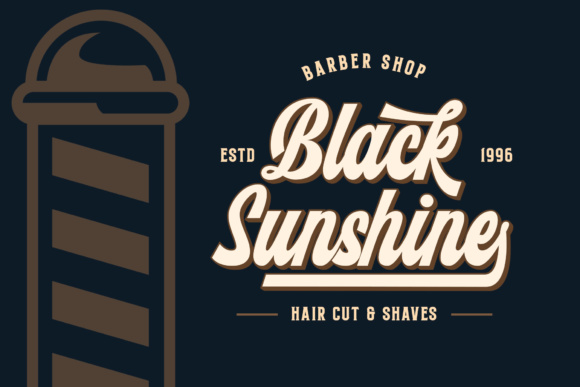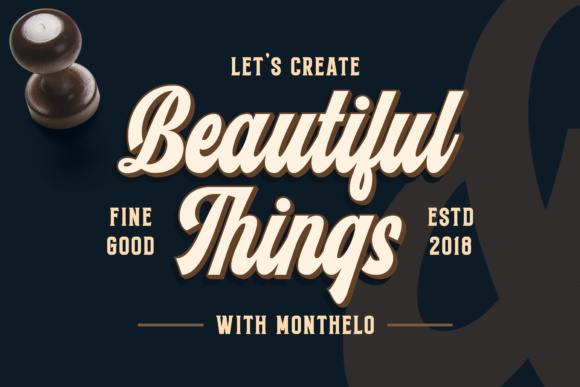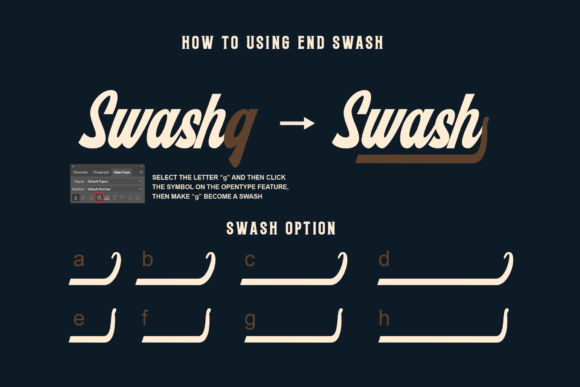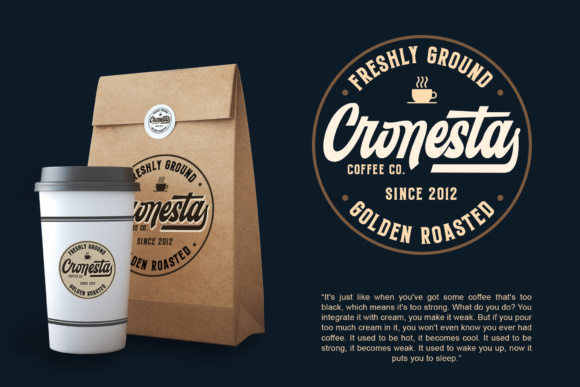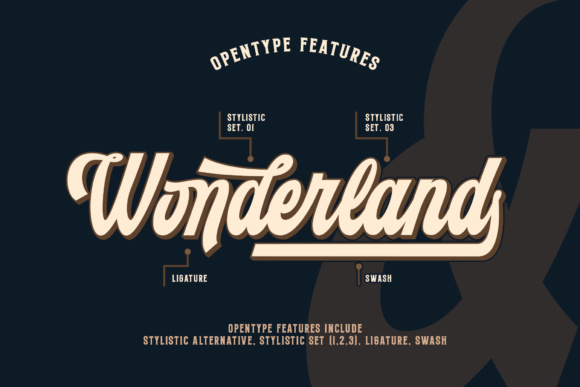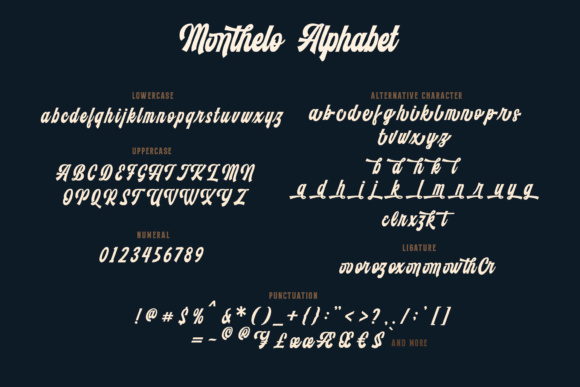
Introduction to Monthelo Font
Have you ever stared at a blank canvas, struggling to find the perfect font to bring your creative project to life? You’ve searched high and low, scrolled through endless options, and finally, you land on that one font that makes your design pop.
Meet the Monthelo Font, a bold script font that will give your design a striking look and make it stand out from the crowd. With its strong letters, this font is perfect for adding a touch of elegance and sophistication to your creative project. Whether you’re designing a logo, a poster, or a social media graphic, the Monthelo Font is a valuable resource that will elevate your design to the next level.
Key Features of Monthelo Font
- High-quality design: The Monthelo Font is a premium quality font suitable for any creative project, offering a professional touch.
- Transparent background: The Monthelo Font features a transparent background, allowing for seamless integration with any design or image.
- High-resolution design: The font is designed with high resolution in mind, making it suitable for use in large-scale designs and prints.
- Unique characteristics: The Monthelo Font boasts a unique and elegant design, perfect for adding a touch of sophistication to any creative project.
Honest Review: Monthelo Font
As a designer, I’m always on the lookout for high-quality design resources to elevate my creative projects. Recently, I stumbled upon the Monthelo Font, and I’m excited to share my honest review with you.
What works well: ✨ The Monthelo Font is a beautiful, elegant script font that’s perfect for adding a touch of sophistication to your designs. It’s available for free download, which is a huge plus for designers on a budget. The font is also highly customizable, allowing you to adjust the size, color, and transparency to suit your needs. I particularly love that it has a transparent background, making it easy to layer over other design elements.
What doesn’t work well: ⚠️ One limitation I’ve noticed is that the font may not be as versatile for sans-serif designs. It’s a script font, after all, and it’s best suited for more elegant, creative projects. Additionally, the font may not be as legible at smaller font sizes.
Overall impression: I’m really impressed with the Monthelo Font, and I think it’s a valuable addition to any designer’s toolkit. It’s a high-quality, free design resource that’s perfect for adding a touch of elegance to your creative projects.
- Perfect for creative projects that require a touch of sophistication
- Highly customizable with transparent background
- Best suited for elegant, script-based designs
Tips for Getting the Most Out of Monthelo Font
Experiment with different font sizes, colors, and combinations to get the most out of the Monthelo Font. Use it to create unique and eye-catching designs that stand out from the crowd.
The Monthelo Font is ideal for use in creative projects such as logos, business cards, brochures, and social media graphics. Its high-quality, transparent background makes it perfect for use in digital designs and print materials.